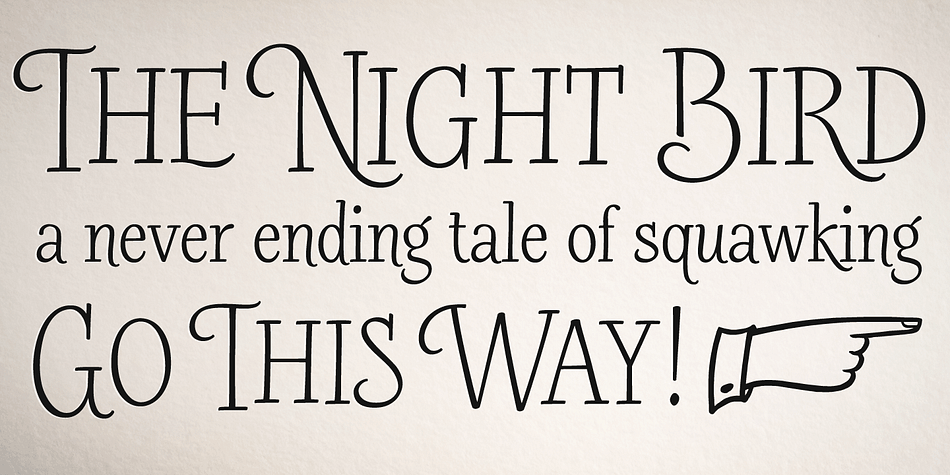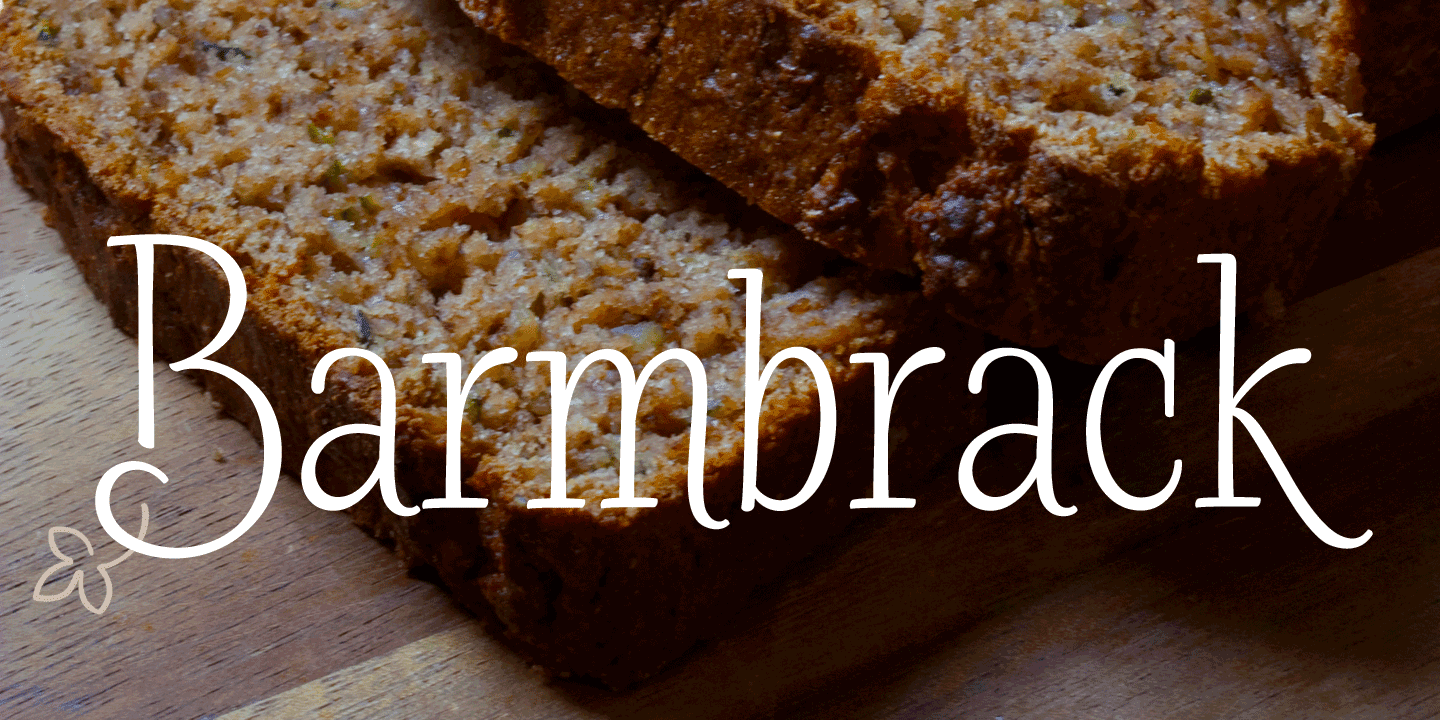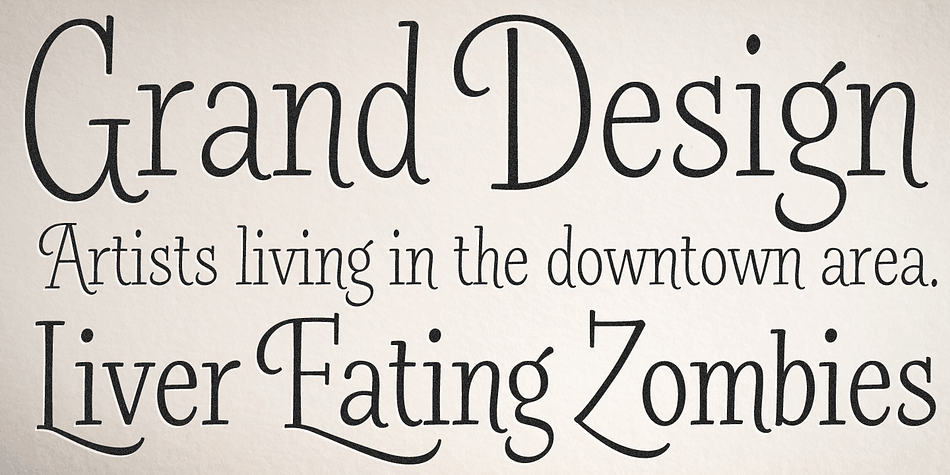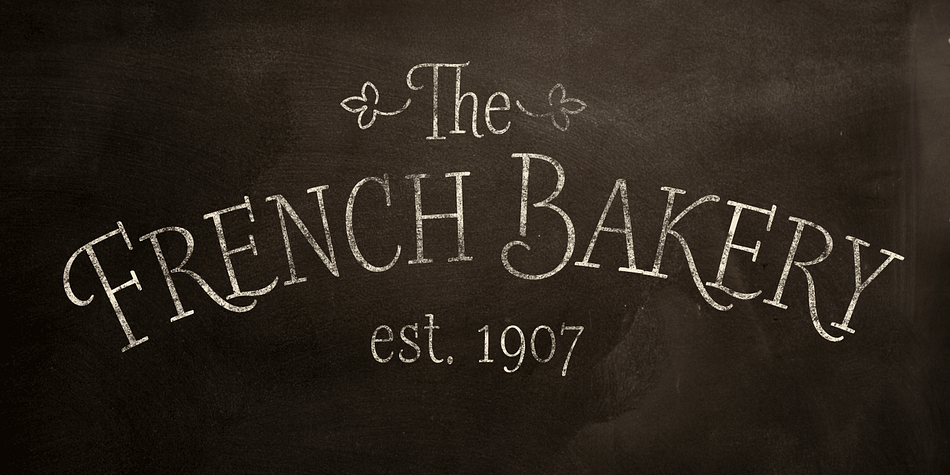
Barmbrack is an art nouveau and dingbat font family. This typeface has five styles and was published by Jess Latham.
Barmbrack is the name of latest top notch creation by Jess Latham.
The inspiration behind Barmbrack was decorative Victorian showcard lettering.